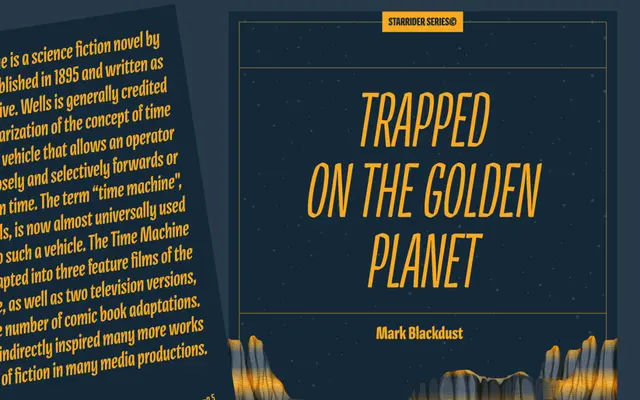
Pilot
Bold Monday · Aleksandra Samuļenkova · 2012
A condensed informal display family with angular, sign-painter qualities, designed by Aleksandra Samuļenkova at the KABK and released across five weights with italics and small caps.
Designed from 2012 to 2017, Pilot was developed as a condensed jobbing face suited to headlines, posters, book jackets and packaging. Its angular letterforms and handmade character lend it a nostalgic warmth, particularly evident in the bold italics where sign-painter influences come through most strongly. The family includes two variants of small caps that mimic traditional catchwords and logotypes, and it remains one of the few contemporary typefaces available as metal type, winning first prize at the Fine Press Book Association's inaugural Student Type Design Competition in 2013.
Pilot is a condensed informal display face with angular, handmade qualities reminiscent of sign painter lettering, placing it firmly in the display category with a condensed subcategory rooted in expressive jobbing type traditions.